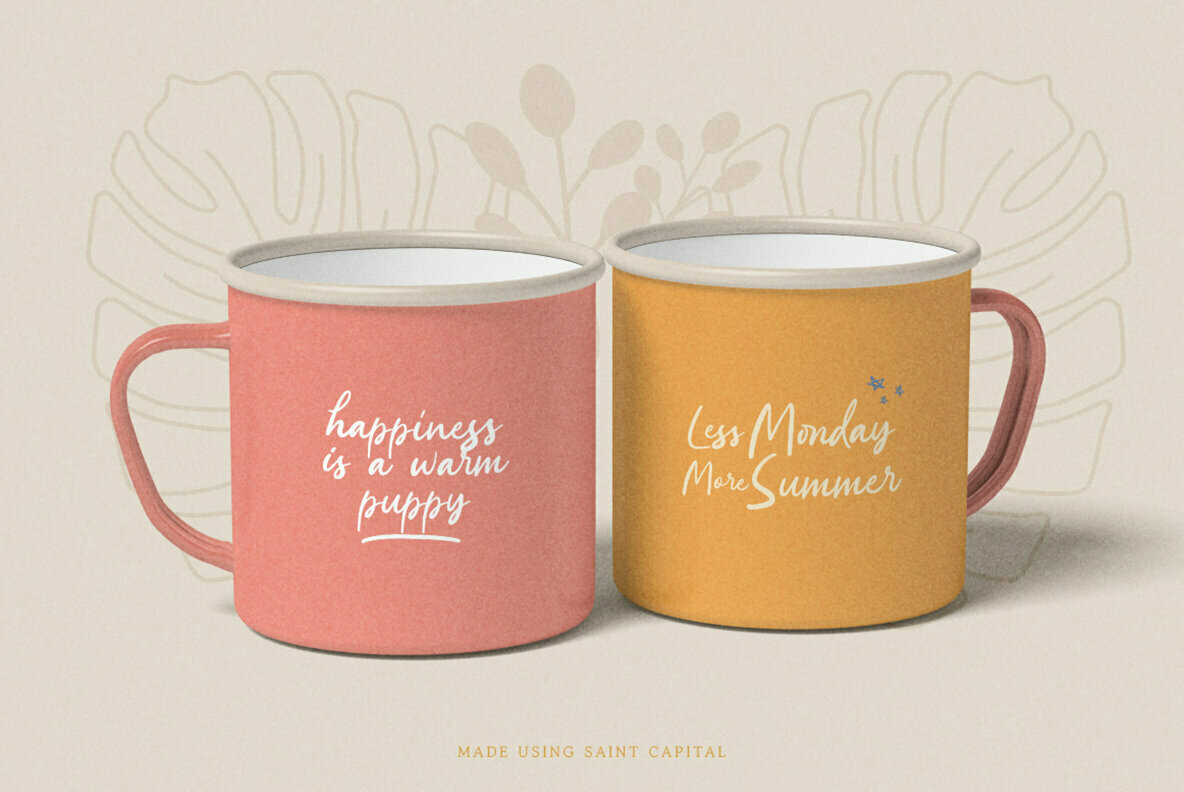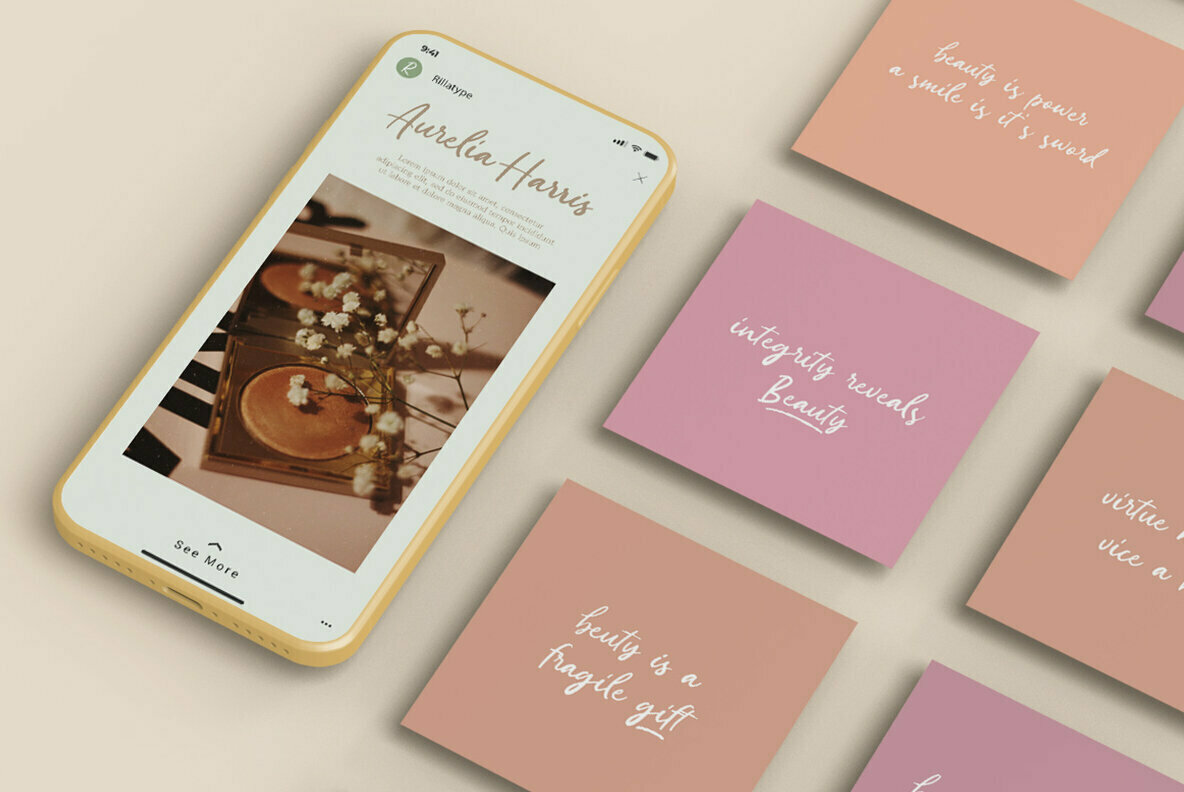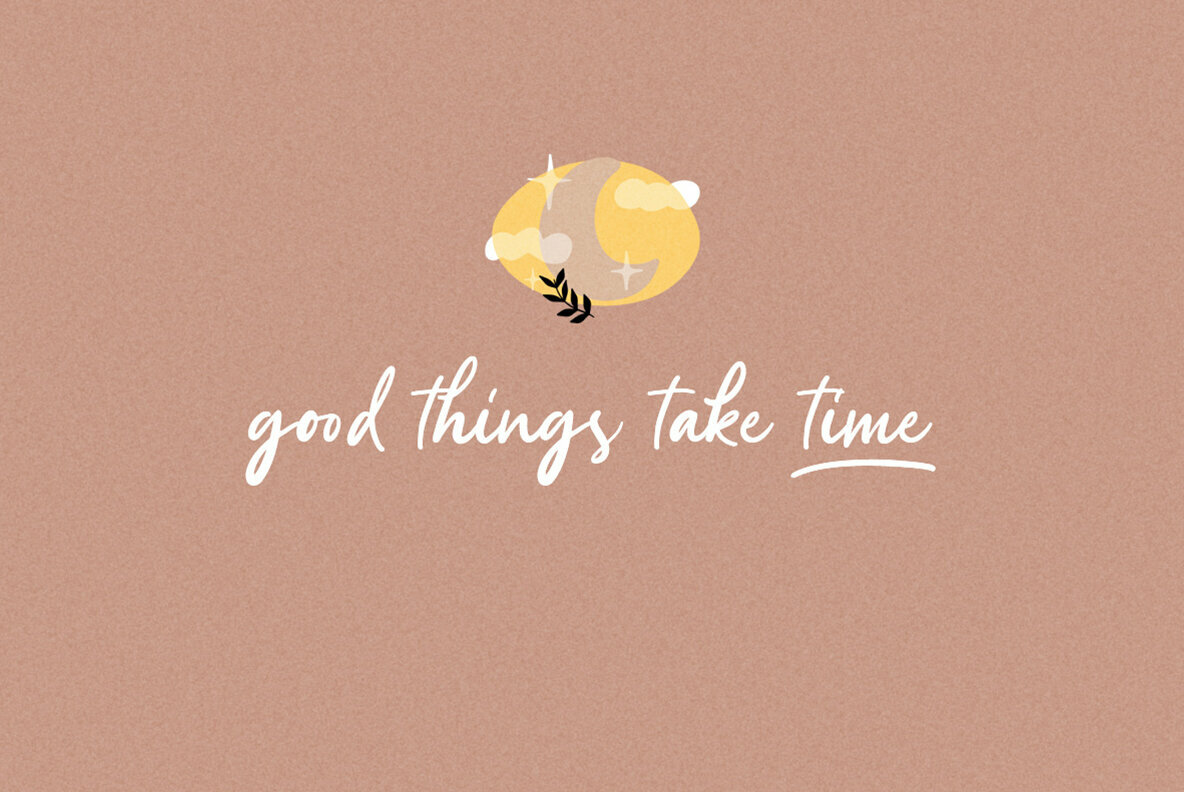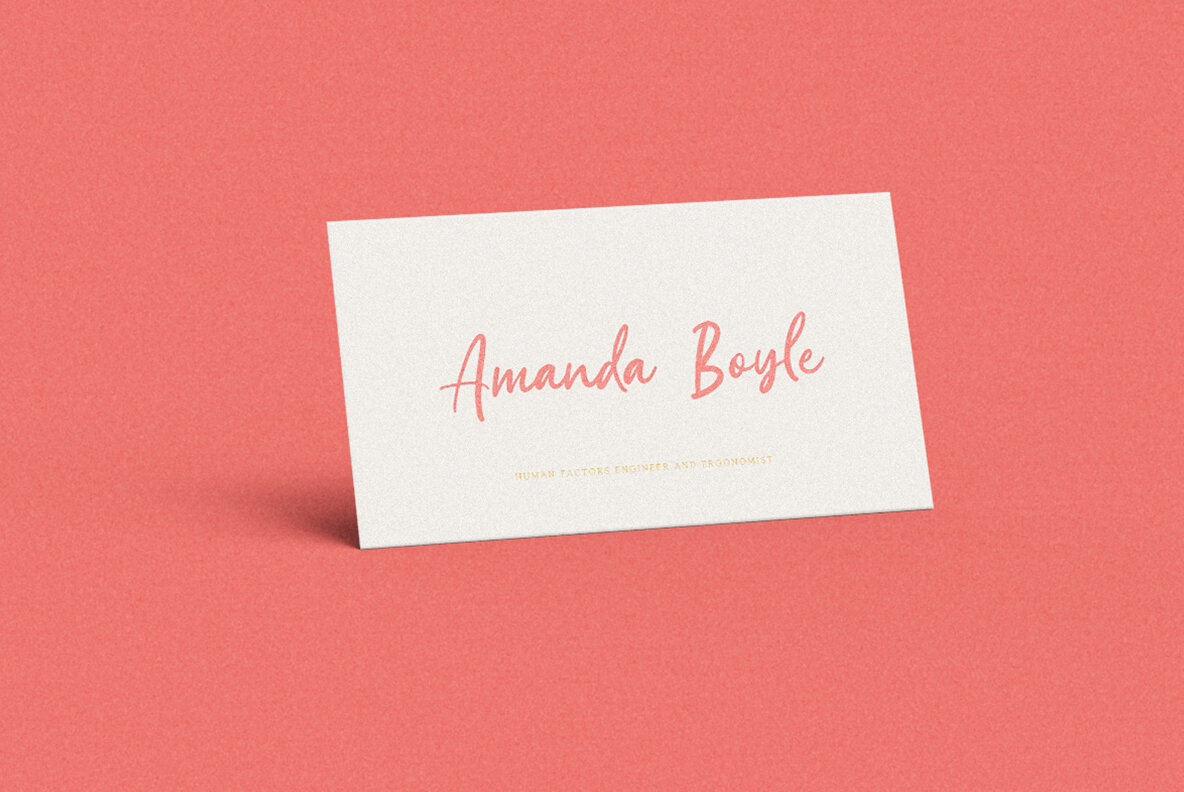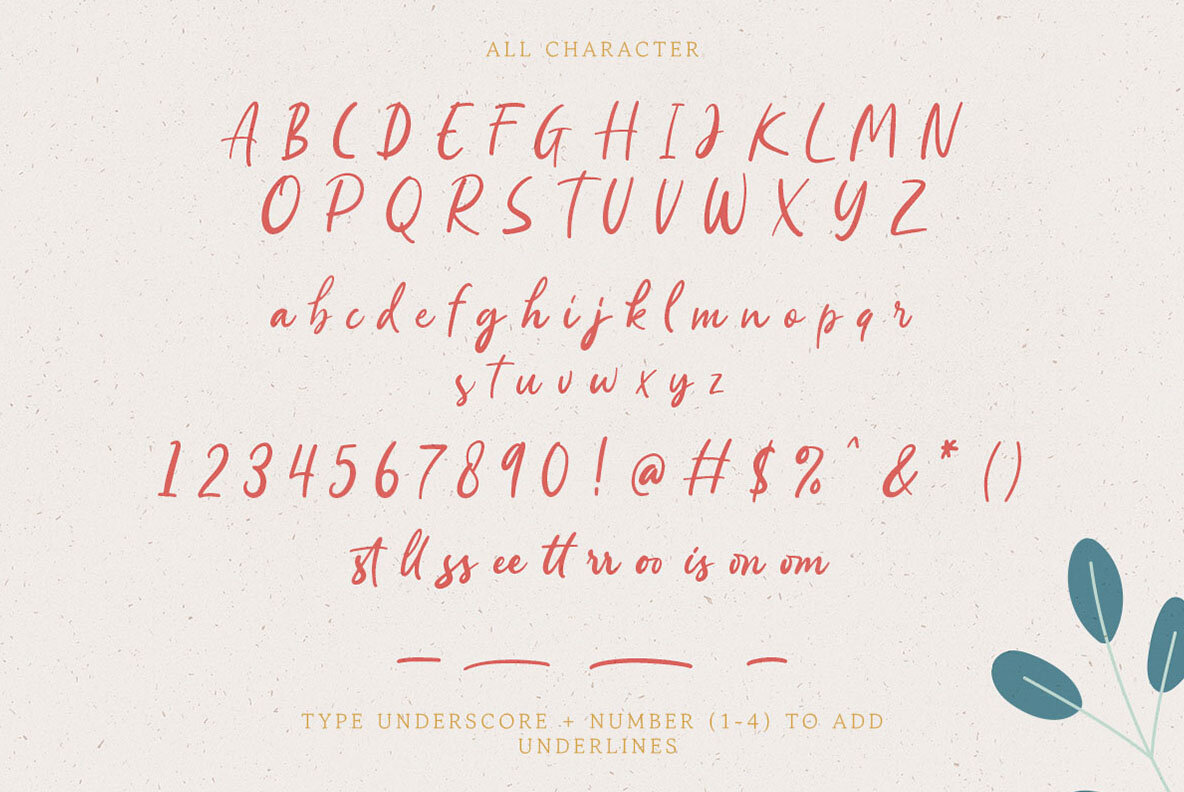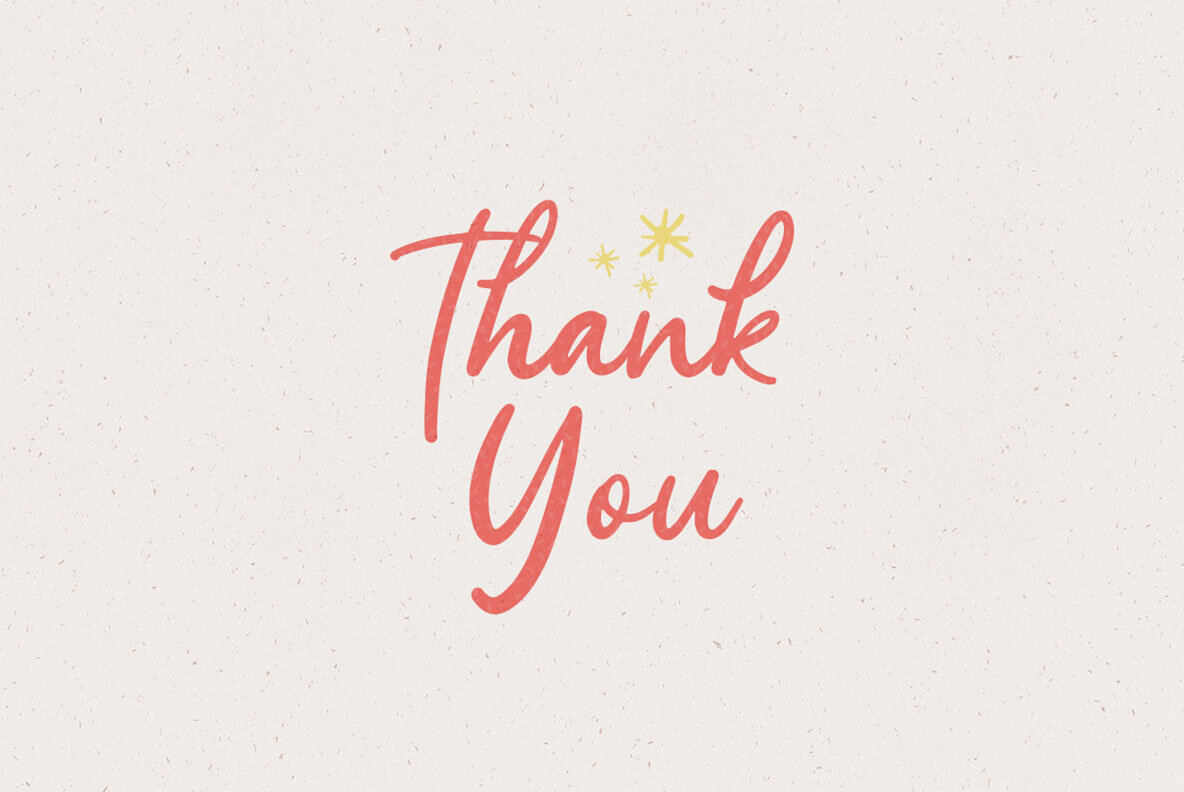
Saint Capital Font
Saint Capital Regular
Saint Capital is a delightful new handwritten script font that infuses designs with a soft and feminine elegance. Its charming strokes add a personable feel, making it an ideal choice for branding, packaging, and more. Whether you're crafting quotes or merchandise, this font offers a whimsical edge that enhances visual appeal. Features:Saint Capital: A Handwritten Script With Feminine Touch
Embrace the graceful qualities of Saint Capital in your next project, and let its playful curves speak volumes.